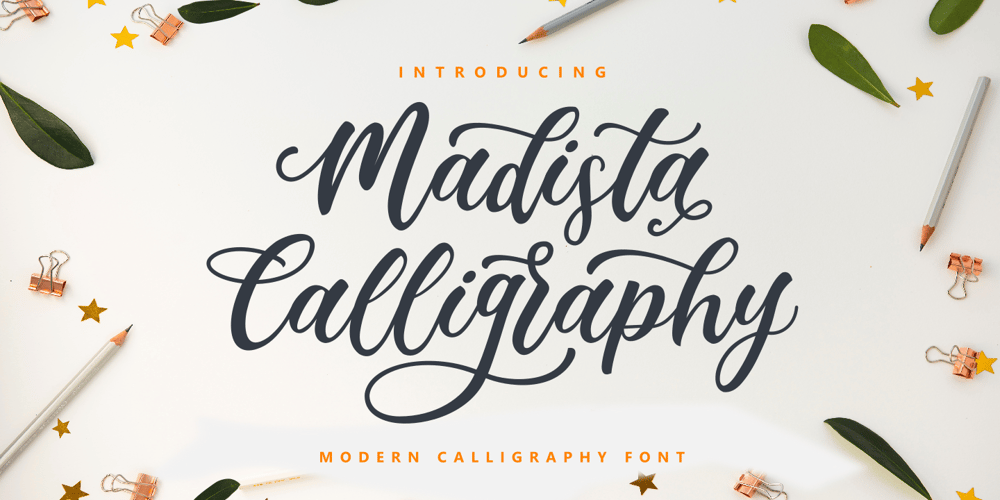
Madista Calligraphy Font Family was designed by Zeenesia Studio and published by Zeenesia Studio. Madista Calligraphy contains 1 styles and family package options. Madista Calligraphy is a modern handwritten, beautiful and romantic script font. It features alternative, ligatures and swashes. This font so beauty and classy, perfect for Lettering project like wedding invitations, beautiful stationary art, eye-catching social media posts, quotes, cute greeting cards and more.I created more than 50 ekstra character to make this font very classy and look so beauty. It completed with numbers and punctuation. Multilingual support, and came with PUA encoded.